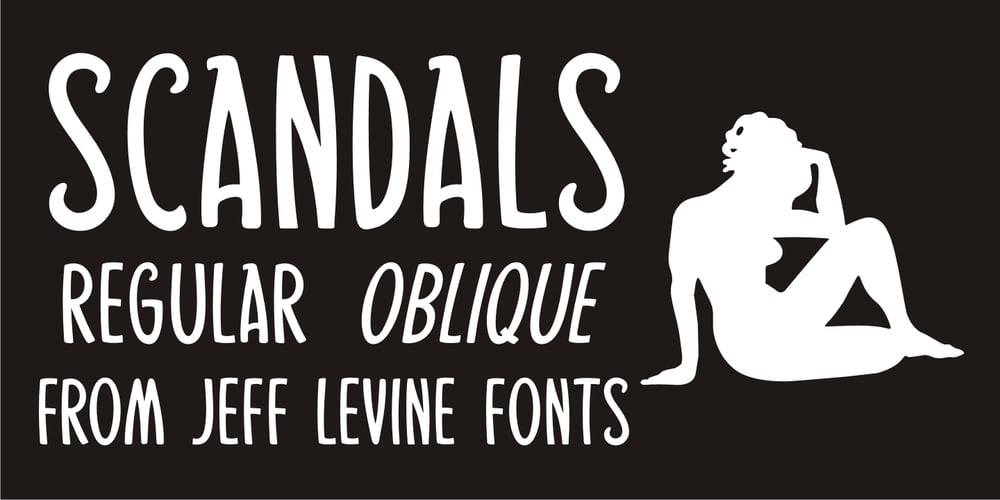
Scandals JNL Font Family was designed by Jeff Levine and published by Jeff Levine. Scandals JNL contains 2 styles and family package options. Scandals JNL is free-form hand lettering with an Art Nouveau influence showing up on a 1928 piece of sheet music for the song “American Tune”, and is based on the cover text noting the song was from the popular (9th Edition) of George White’s Scandals; a Broadway musical-variety show. Available in both regular and oblique versions.